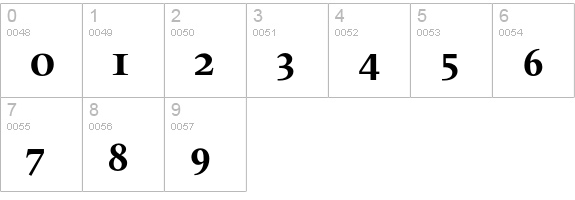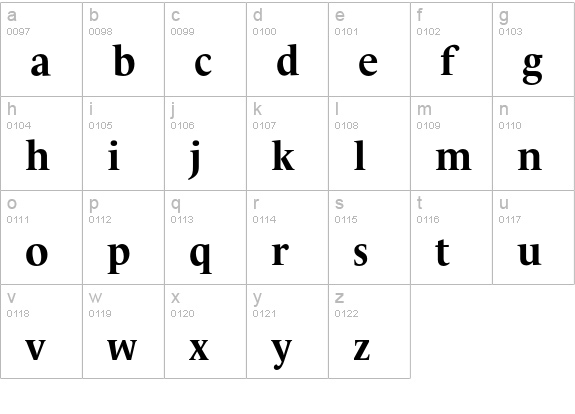
LeMondeLivre Bold Oldstyle Figures is a strong, high-contrast variant in the LeMondeLivre typeface family \xE2\x80\x94 well suited to headlines, attention-grabbing titles, and strong calls-to-action.
LeMondeLivre Bold Oldstyle Figures font exudes a timeless charm that effortlessly combines boldness with elegance. This exquisite typeface, with its striking oldstyle figures, captures attention and adds a touch of sophistication to any design project. The bold and assertive nature of LeMondeLivre Bold Oldstyle Figures font makes it perfect for headlines, titles, and branding materials. Its classic yet contemporary appearance makes it versatile and adaptable to various design styles and purposes. Every character of LeMondeLivre Bold Oldstyle Figures font has been meticulously crafted to ensure a harmonious balance between its bold strokes and delicate details. The result is a font that possesses a captivating allure, whether used in print or digital media. What makes LeMondeLivre Bold Oldstyle Figures font even more desirable is the fact that it is freely available to download at FontsMarket.com. This means that designers and typographers can easily access and utilize this stunning typeface without any financial constraints. Whether you are working on a book cover, a website design, or a branding project, LeMondeLivre Bold Oldstyle Figures font is the perfect choice to add a touch of timeless elegance. Its versatility, boldness, and availability make it an invaluable asset in any designer's toolkit. Experience the beauty of LeMondeLivre Bold Oldstyle Figures font today by downloading it freely at FontsMarket.com.